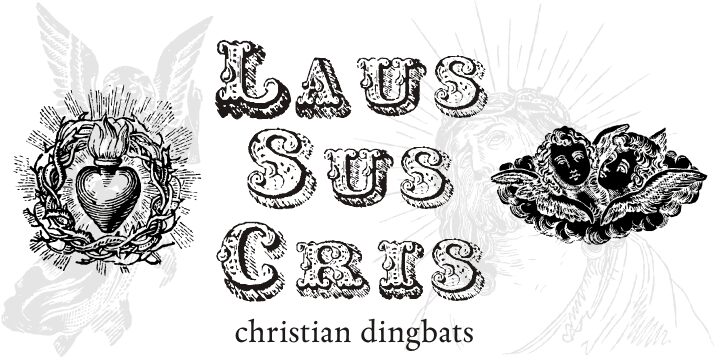
Laus Sus Cris by Paulo W. is a free esoteric symbol font centered on Christian devotional imagery. Its collection combines ornate crosses with finely engraved portraits, angels, radiant halos, and sacred emblems. The drawing ranges from crisp, simplified marks to detailed scenes that resemble old prayer-book illustrations.
It can turn a church bulletin into a devotional emblem. The crosses and sacred figures also suit religious event posters, historical publishing, and faith-based merchandise, where recurring rays, flames, and ceremonial ornament connect the symbols directly to worship imagery.
Laus Sus Cris is a Christian symbol font created by Paulo W. It includes symbols such as crosses, halos, angels, and sacred hearts.